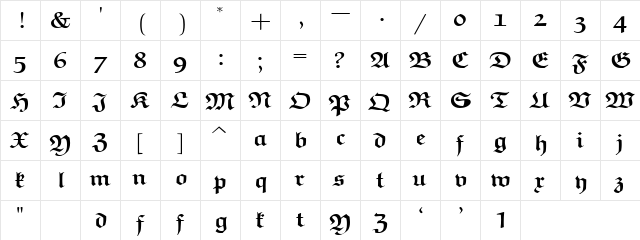
eufb10 Regular
Design Context for eufb10 Typeface
eufb10 takes a measured approach to typography — its balanced proportions and neutral character make it a reliable workhorse for both digital and print work.